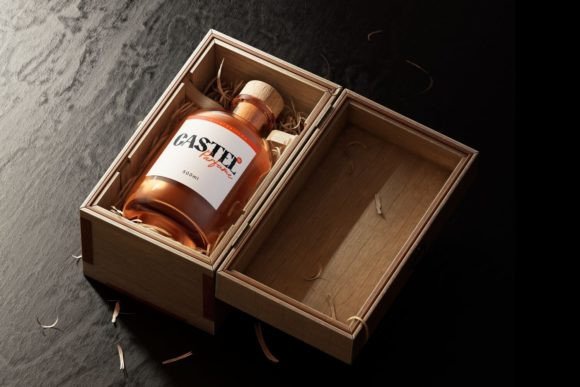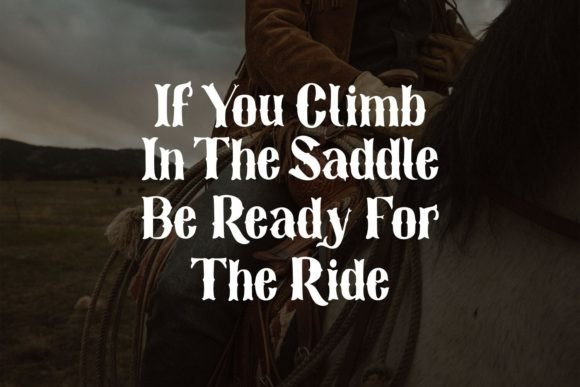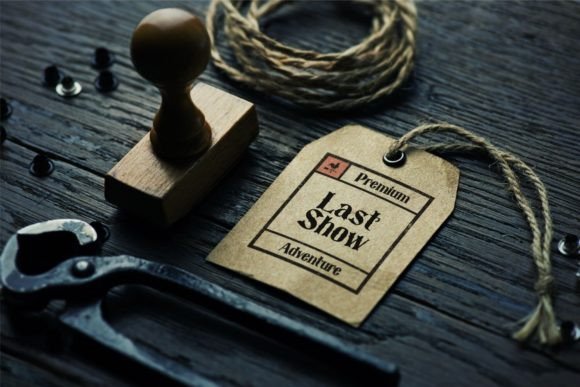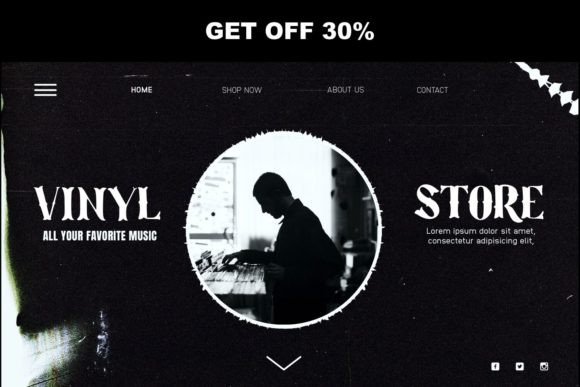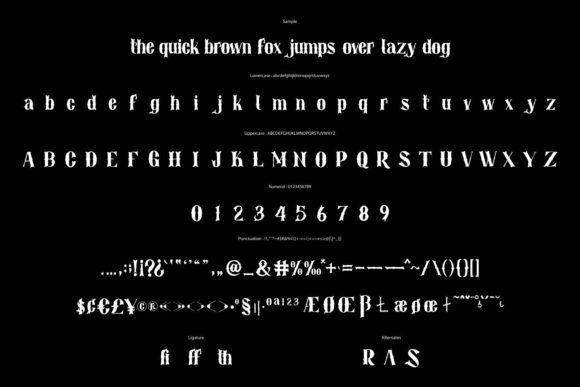
Introduction to Red Horse Font
Red Horse is a modern display font with a wild west calligraphy style.
It will be perfect for use on invitations, greeting cards, branding materials, business cards, quotes, posters, and more .
Key Features of Red Horse Font